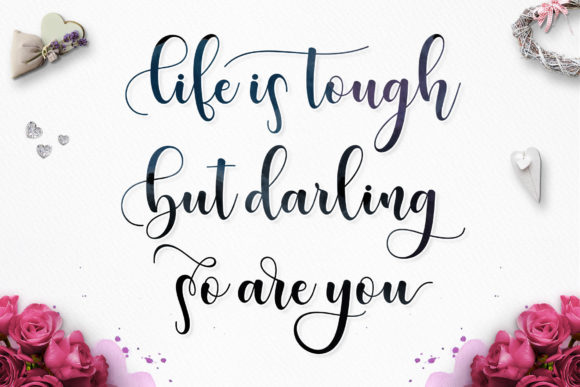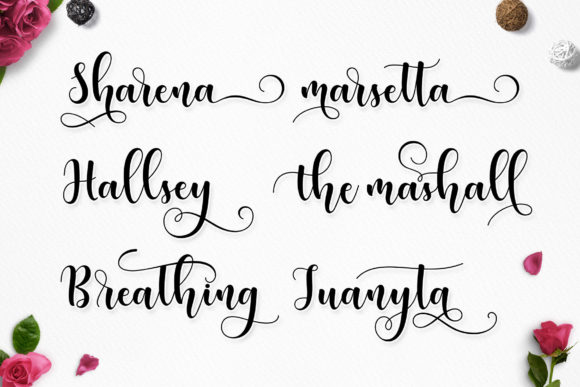
About Heartbeat Font
Heartbeat is a bold and elegant handwritten font. Masterfully designed to become a true favorite. It maintains its classy calligraphic influences while feeling contemporary and fresh. Fall in love with it and bring your projects to the highest levels!